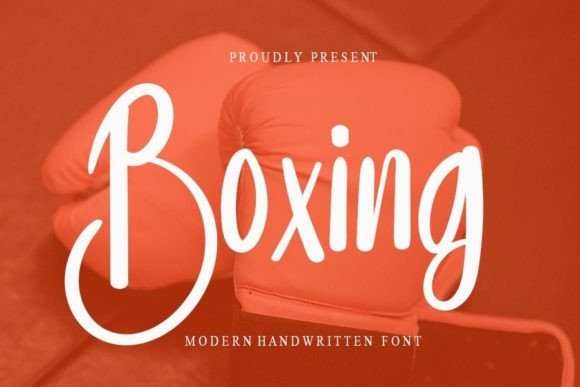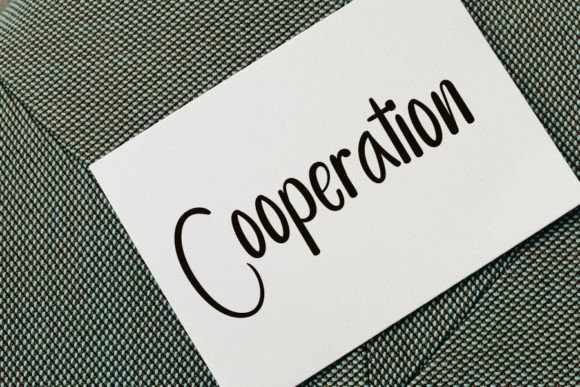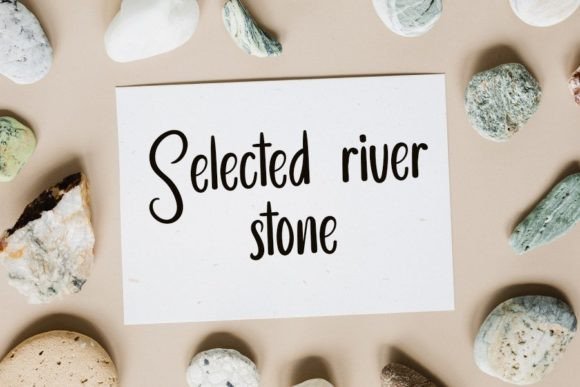
About Boxing Font
“Boxing” is a charming and delicate handwritten font that embodies sweetness and elegance. Its dainty and joyful appearance makes it an excellent choice for creating romantic and personalized designs, especially for occasions like weddings, invitations, and greeting cards. With its whimsical and graceful style, “Boxing” adds a touch of romance and intimacy to your projects, making them visually captivating and emotionally resonant.
The font’s handwritten charm gives your text a personal and heartfelt feel, creating a sense of warmth and sincerity. Its graceful and flowing letterforms add a touch of creativity and sophistication, making it perfect for projects that require a romantic and personalized touch. Whether you’re crafting wedding invitations, love letters, heartfelt notes, or any other romantic design, “Boxing” enhances the emotional connection with your audience, making your messages even more meaningful.
“Boxing” evokes a sense of tenderness and love, making it suitable for projects that celebrate relationships and special moments. Its delicate and playful demeanor creates a romantic atmosphere, making it perfect for expressing love and affection. Whether used for intimate wedding stationery or heartfelt anniversary cards, “Boxing” adds a touch of romance to your designs, making them truly special and memorable.
One of the standout features of “Boxing” is its versatility. Its sweet and delicate style adapts seamlessly to various design contexts, allowing it to enhance a wide range of romantic and personalized projects. The font’s timeless charm makes it suitable for both classic and contemporary designs, making it a valuable asset for designers seeking to create romantic and heartfelt experiences for their audience.
Embrace the sweetness and delicacy of “Boxing” and let it infuse your designs with love and romance. Its heartfelt and intimate style makes it a perfect choice for expressing emotions and creating memorable moments. With “Boxing,” you can confidently craft romantic and personalized designs that touch the hearts of your audience, leaving a lasting impression on anyone who experiences your work.